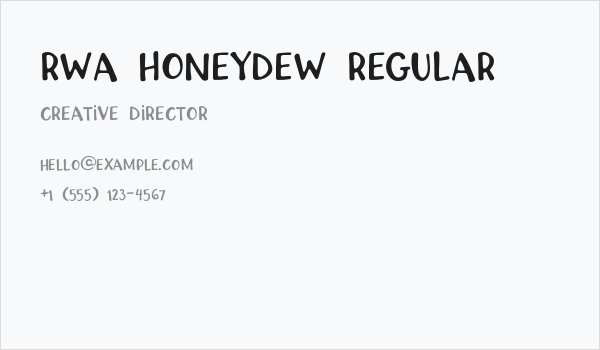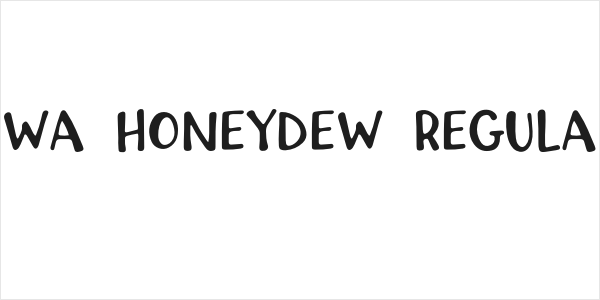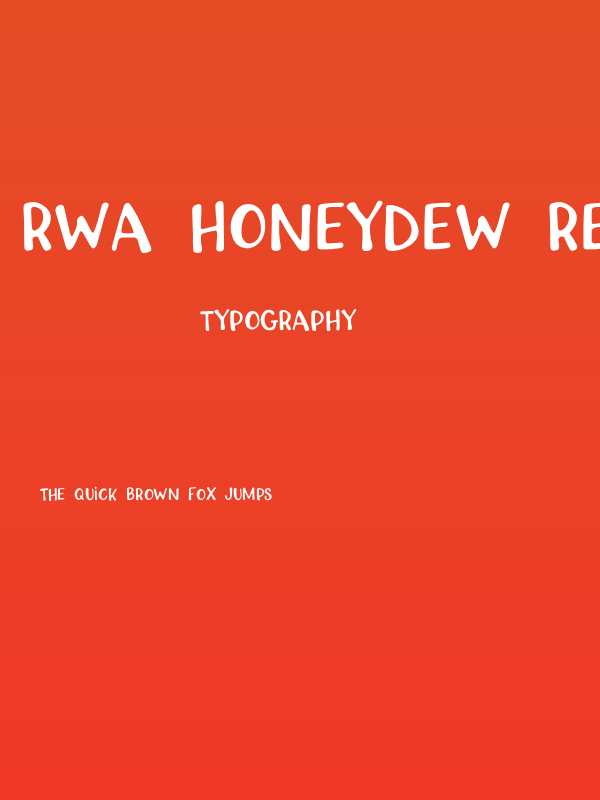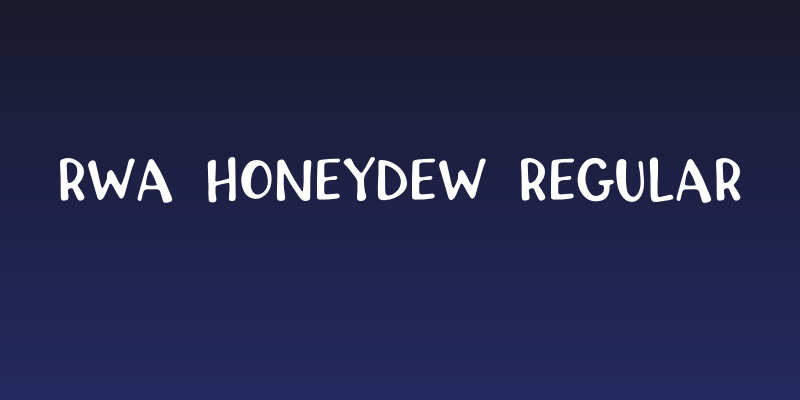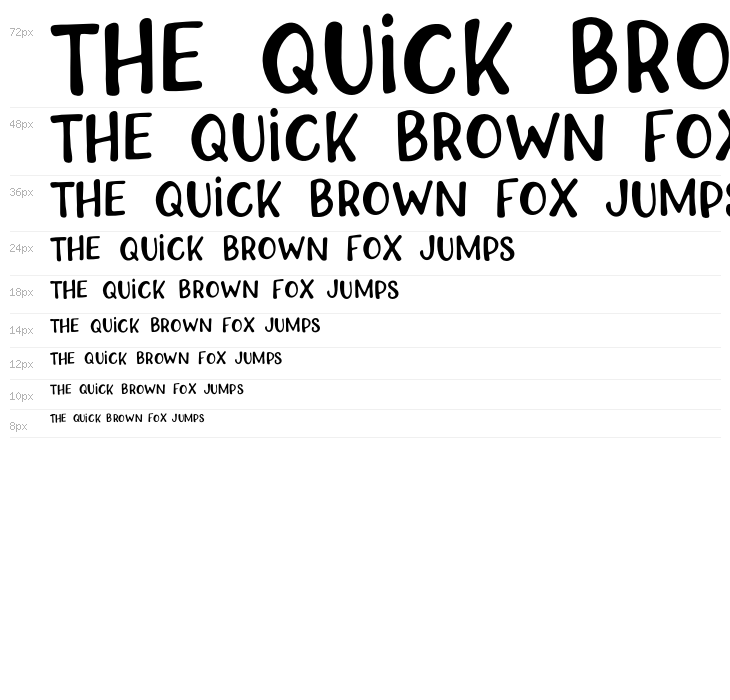
RWA Honeydew Regular Font
RWA Honeydew Regular Description
This font features a playful and casual handwritten style, characterized by its rounded and slightly irregular letterforms. The strokes are bold and consistent, giving it a friendly and approachable appearance. The uppercase and lowercase letters maintain a uniform height, contributing to its cohesive look. Numbers and special characters are designed with the same playful aesthetic, making them easily legible and visually appealing. This font's informal style makes it suitable for creative and fun projects.
| Proposed Projects | Ideal for children's books, greeting cards, playful branding, and casual invitations. |